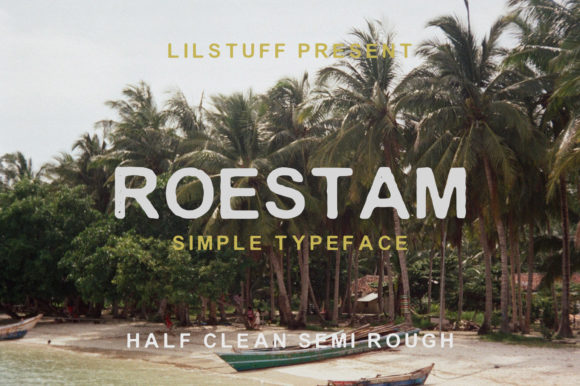
Introducing Roestam Font: The Gateway to Timeless Elegance
Step into a world of visual enchantment with Roestam Font, a captivating display font that effortlessly blends simplicity, vintage charm, and minimalist aesthetics. Prepare to be mesmerized as this font graces your posters, flyers, and prints, transforming them into works of art.
With its clean lines and understated sophistication, Roestam Font possesses an inherent allure that draws the eye and captivates the senses. Its vintage-inspired character exudes a timeless elegance, evoking a sense of nostalgia and authenticity. Whether you're a seasoned designer or just starting your creative journey, Roestam Font is the perfect companion for your design endeavors.
Unleash your creativity and explore the endless possibilities that await you. Let Roestam Font elevate your designs to new heights, adding a touch of timeless charm and sophistication to every project you undertake. Its versatility extends to a wide range of applications, from branding and marketing materials to posters and social media graphics.
Indulge in the beauty of simplicity and let Roestam Font captivate your audience. Its minimalist design ensures that your message takes center stage, while its vintage charm adds a touch of warmth and personality. Experience the magic of Roestam Font and unlock the true potential of your creative vision.